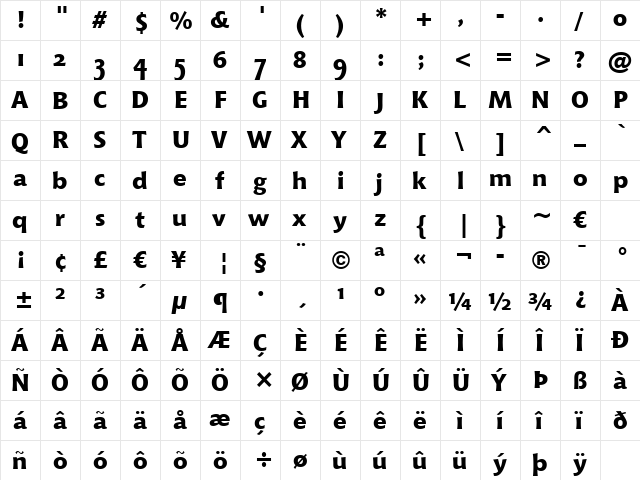
Chianti XBd OSF BT Extra Bold
Design Context for Chianti XBd OSF BT Typeface
Chianti XBd OSF BT is a composed and adaptable typeface that performs quietly and consistently across a wide range of design contexts. Its bold stroke weight gives it real presence on the page.